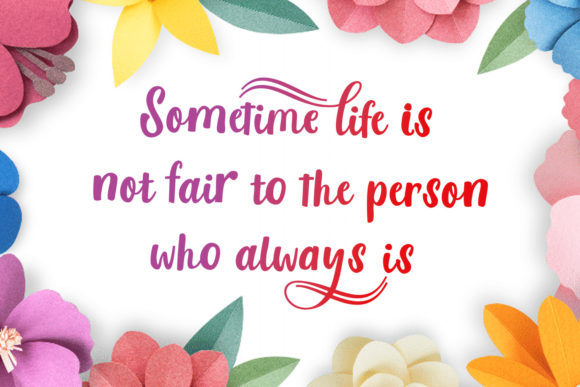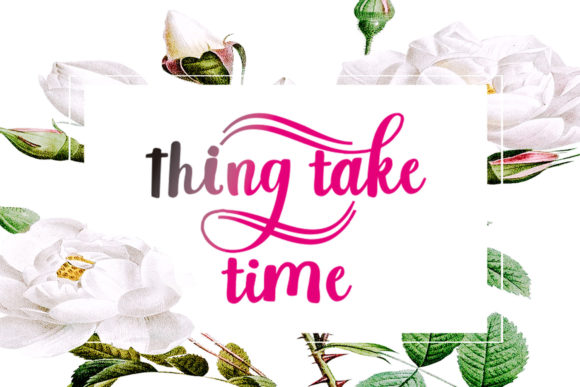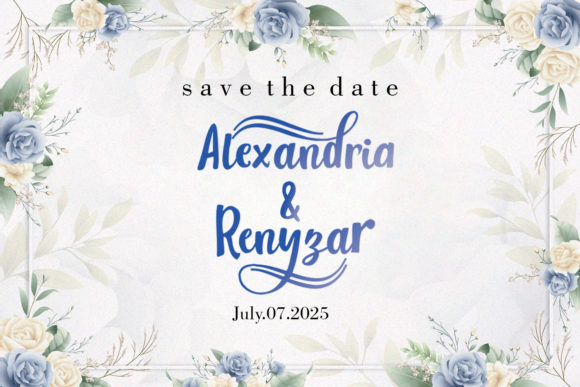
Introduction to Selogard Font
As a designer, there’s nothing quite like the thrill of bringing a creative project to life. The moment when all the elements come together, and your design starts to take shape – it’s pure magic. But what makes the difference between a good design and a great one? The answer lies in the details, and that’s where the Selogard Font comes in.
This gorgeous and bold handwritten font is the perfect addition to any design resource. With its strong, confident, and dynamic feel, it’s sure to give your headlines and logotype projects a stylish touch that’s hard to resist. Whether you’re working on a high-quality branding project or simply want to add a touch of nostalgia to your designs, the Selogard Font is an invaluable resource that’s sure to deliver.
Key Features of Selogard Font
- High-quality design for a creative project, perfect as a design resource for various applications
- Supports various languages, making it a versatile design resource for global projects
- Unique characteristic: Modern, minimalist aesthetic, ideal for contemporary design projects
Honest Review: Selogard Font
As a designer, I’m always on the lookout for high-quality design resources to enhance my creative projects. Recently, I came across the Selogard Font, and I must say it’s been a game-changer for me.
- ✨ The font is extremely versatile and can be used for a wide range of creative projects, from logos to branding materials.
- ✨ The high-quality design ensures that the font looks crisp and clean on any background, including transparent backgrounds.
- ⚠️ The font only comes in a limited range of weights and styles, which might not be suitable for projects that require a lot of customization.
- ⚠️ Some users may find the font’s design a bit too modern or trendy, which might not be to everyone’s taste.
Overall, I’m thoroughly impressed with the Selogard Font, and I highly recommend it to designers looking for a high-quality, versatile font for their creative projects.
The Selogard Font is perfect for a wide range of creative projects, from wedding invitations to business presentations. Its elegant design and transparent background make it easy to use in a variety of settings.
Is the Selogard Font suitable for digital and print projects?
The Selogard Font is designed to be highly versatile, making it suitable for both digital and print projects. Its high-quality design ensures that it will look great on various devices and print materials, including business cards, brochures, and websites. However, if you’re planning to use the font for a specific design project, it’s always a good idea to test it in advance to ensure it meets your design requirements.